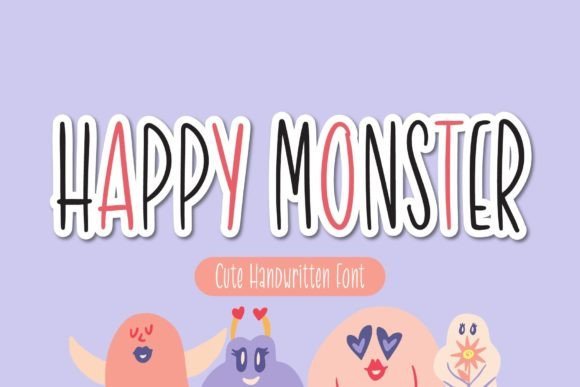
The Joy of Handwritten Fonts: Discovering Happy Monster Font
You know that moment when you’re brainstorming ideas for a new project and you need a font that screams ‘fun’ and ‘playful’? You’re scrolling through font libraries, trying to find the perfect match, and then – it hits you! The perfect font that brings your creative vision to life. For many designers, that moment is what makes the job so exciting.
Meet Happy Monster Font, a friendly handwritten font that’s sure to put a smile on your face. This charming font is perfect for social media posts, posters, cards, and greeting cards – anywhere you want to add a touch of whimsy and personality. With its quirky charm and playful feel, Happy Monster Font is a valuable addition to any designer’s toolkit.
Happy Monster Font Key Features
- Font Family: A playful, sans-serif font designed for children’s books and educational materials.
- Character Count: 250+ characters, including uppercase and lowercase letters, numbers, and special characters.
- Unique Characteristics: Features rounded edges, bold lines, and a vibrant color scheme, making it perfect for creating engaging and fun designs.
Happy Monster Font Review
Overall, I was excited to dive into the Happy Monster Font, and while it has its charm, it didn’t entirely live up to my expectations. Let’s start with the good stuff: ✨ The font’s playful, whimsical nature is perfect for projects that need a touch of fun and personality. The irregular letterforms add a sense of hand-drawn character that’s hard to find in more traditional fonts.
Another thing I appreciated was the wide range of weights and styles available. From the bold, attention-grabbing headers to the delicate, cursive scripts, there’s a Happy Monster Font to suit every need. Plus, the font’s compatibility across various platforms and devices is seamless, making it a great choice for designers who need to ensure their work looks great everywhere.
- ⚠️ Readability can be a concern at smaller font sizes, as the irregular letterforms can sometimes blend together.
- ⚠️ While the font’s playful nature is a strength in many contexts, it may not be the best choice for more formal or professional projects.
Overall, I’d give the Happy Monster Font 3.5 out of 5 stars. While it’s a great choice for the right projects, its limitations hold it back from being a go-to font for more serious or complex designs.
The Happy Monster Font is ideal for creating playful and whimsical designs, such as:
Children’s book illustrations
Party invitations and decorations
Playful advertising and branding materials
Remember to experiment with different font sizes, colors, and combinations to achieve the desired look and feel.